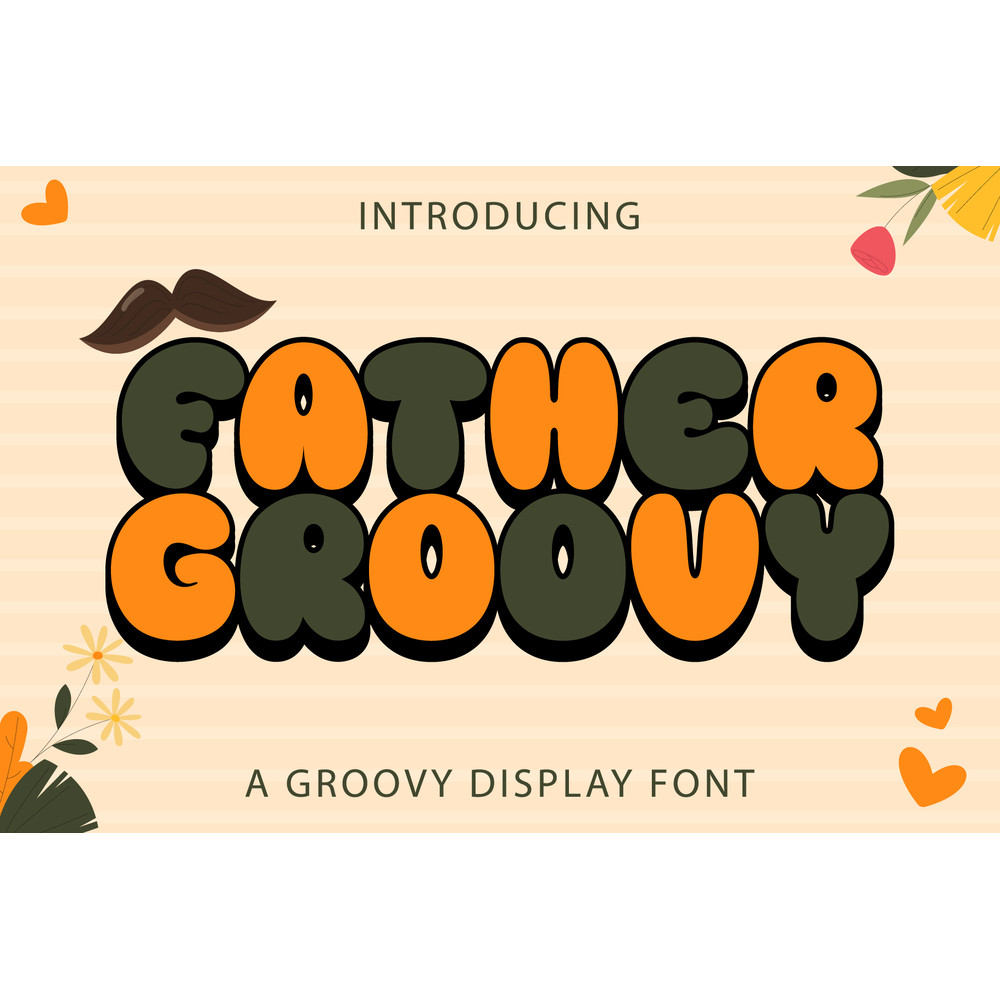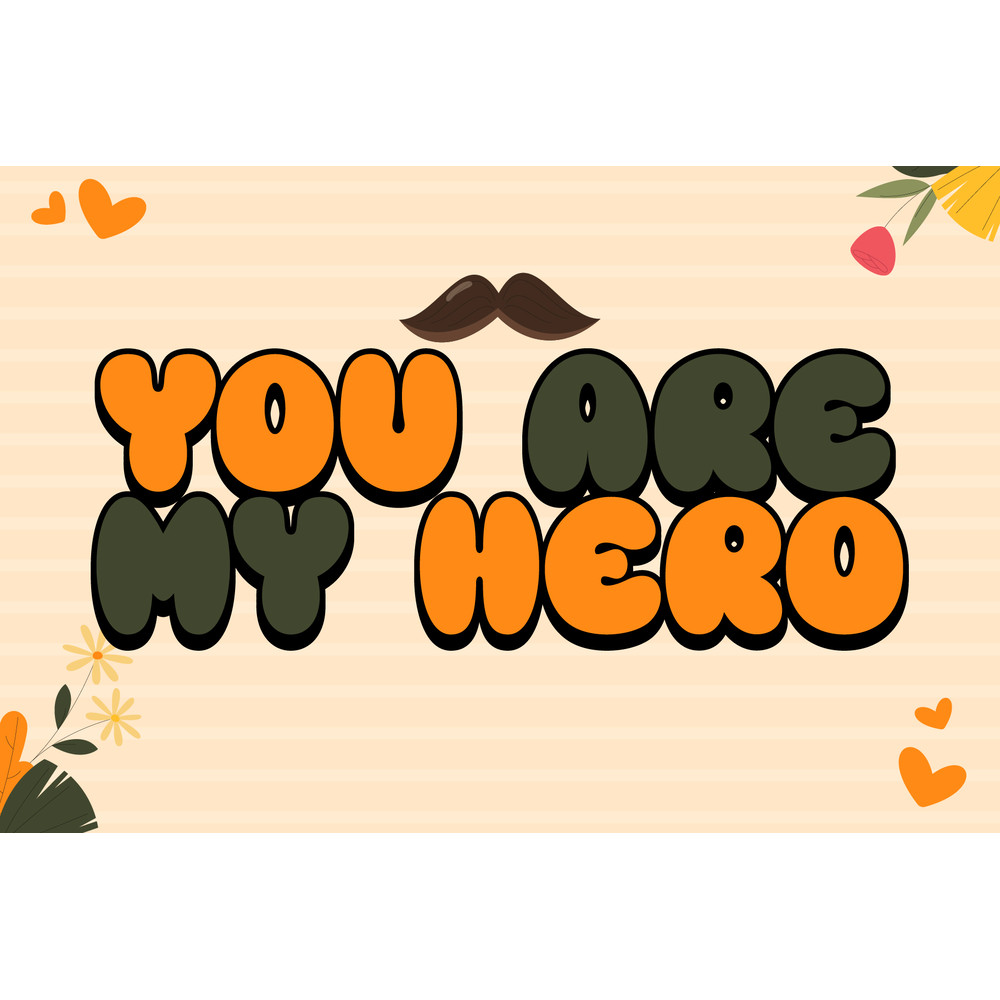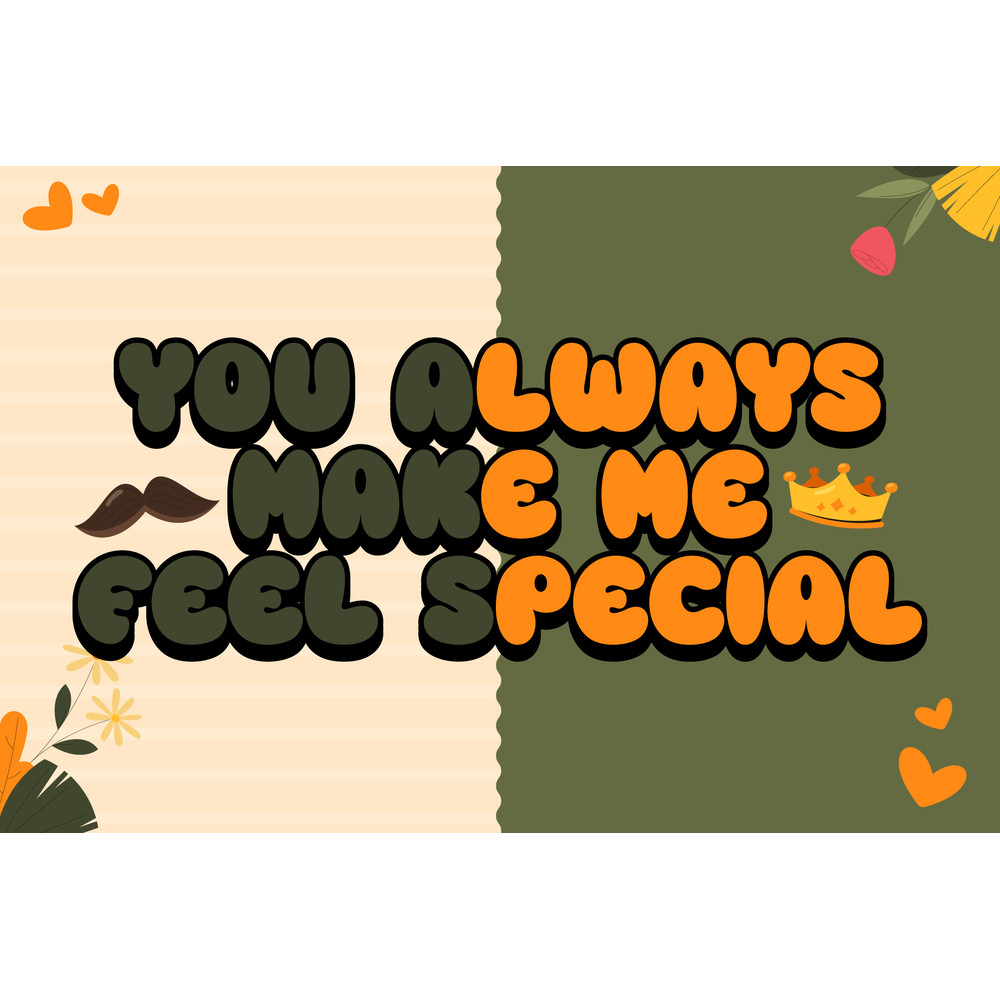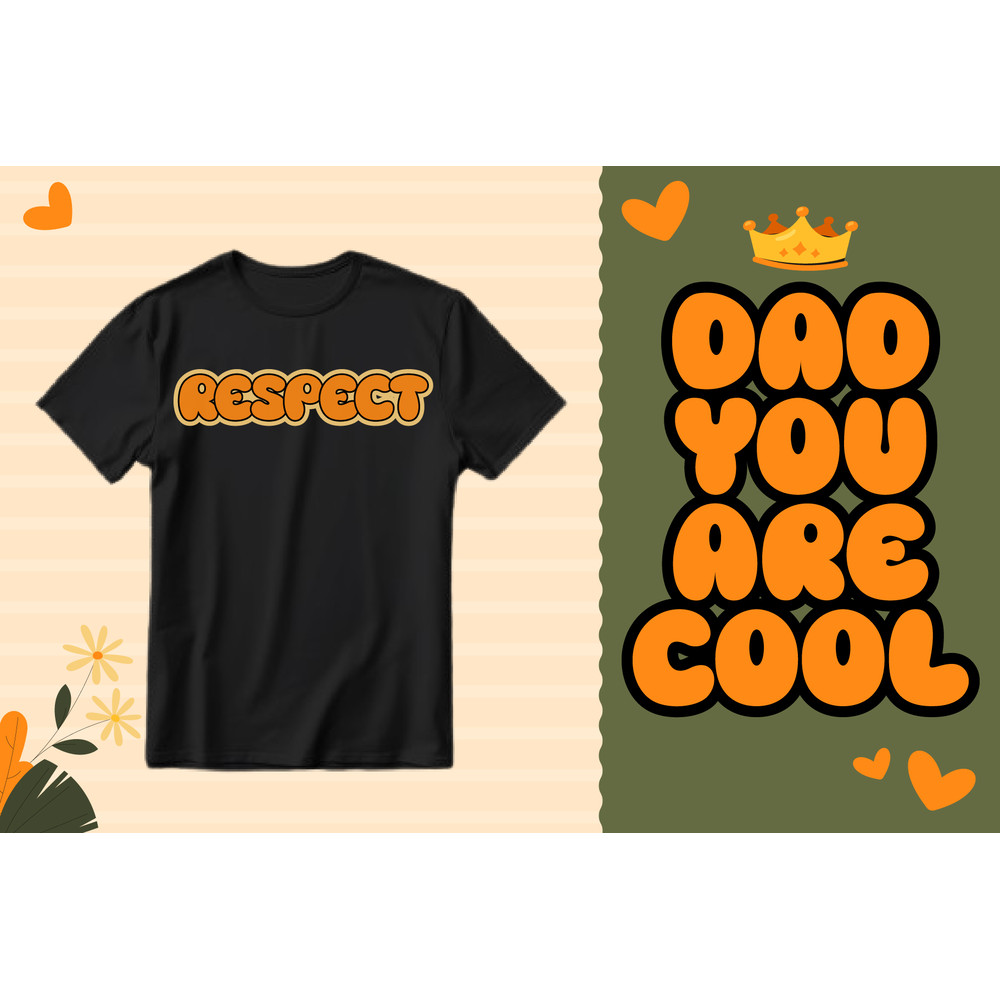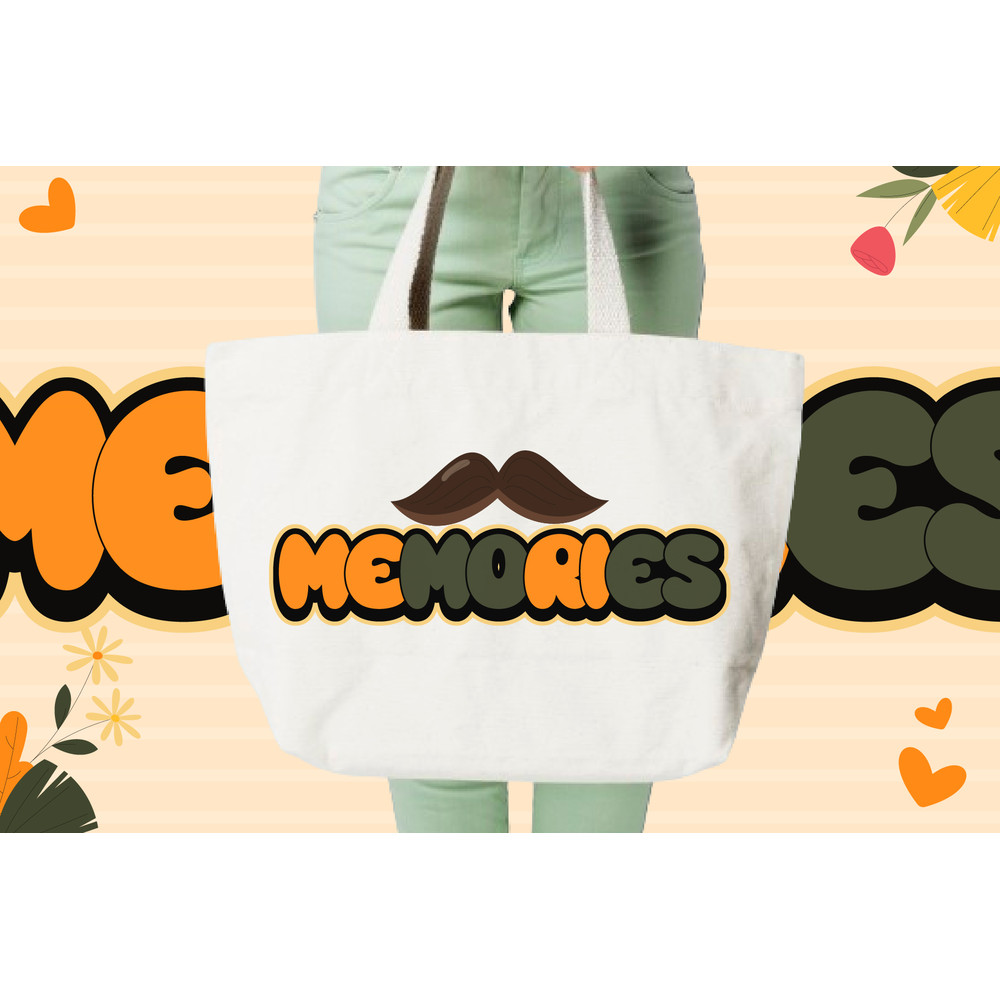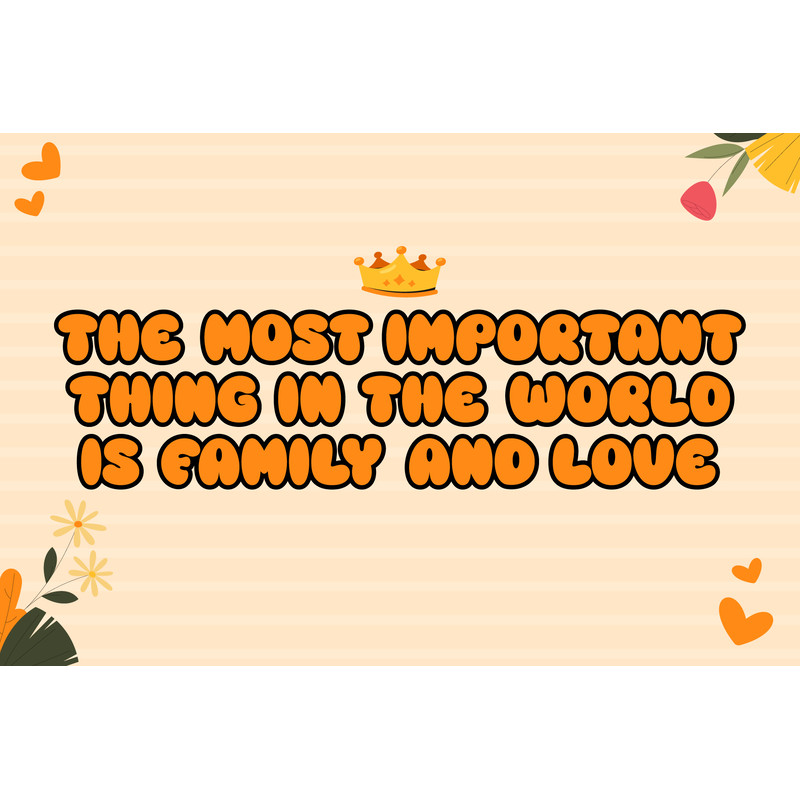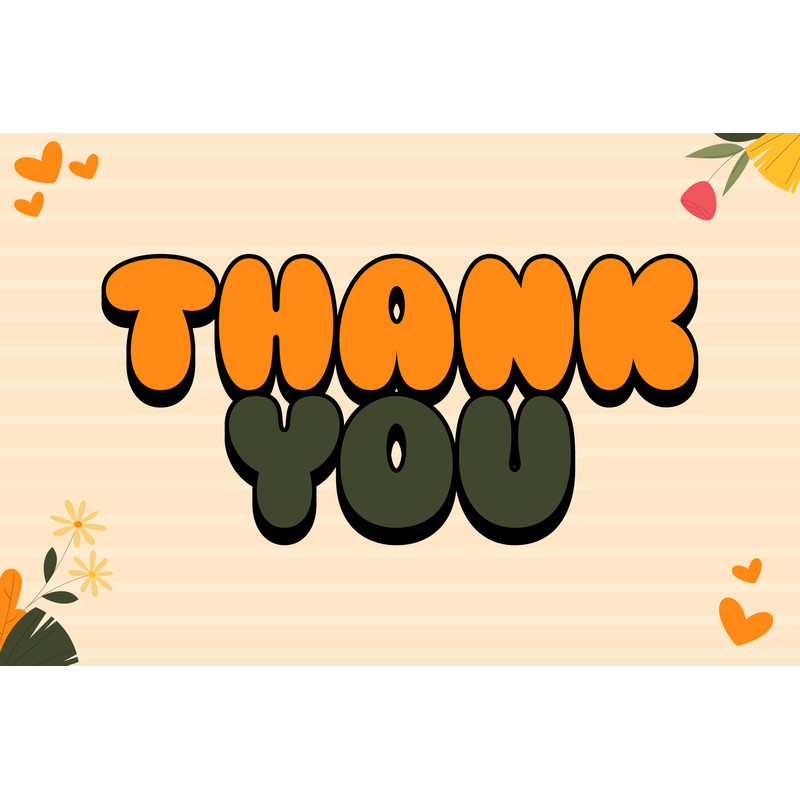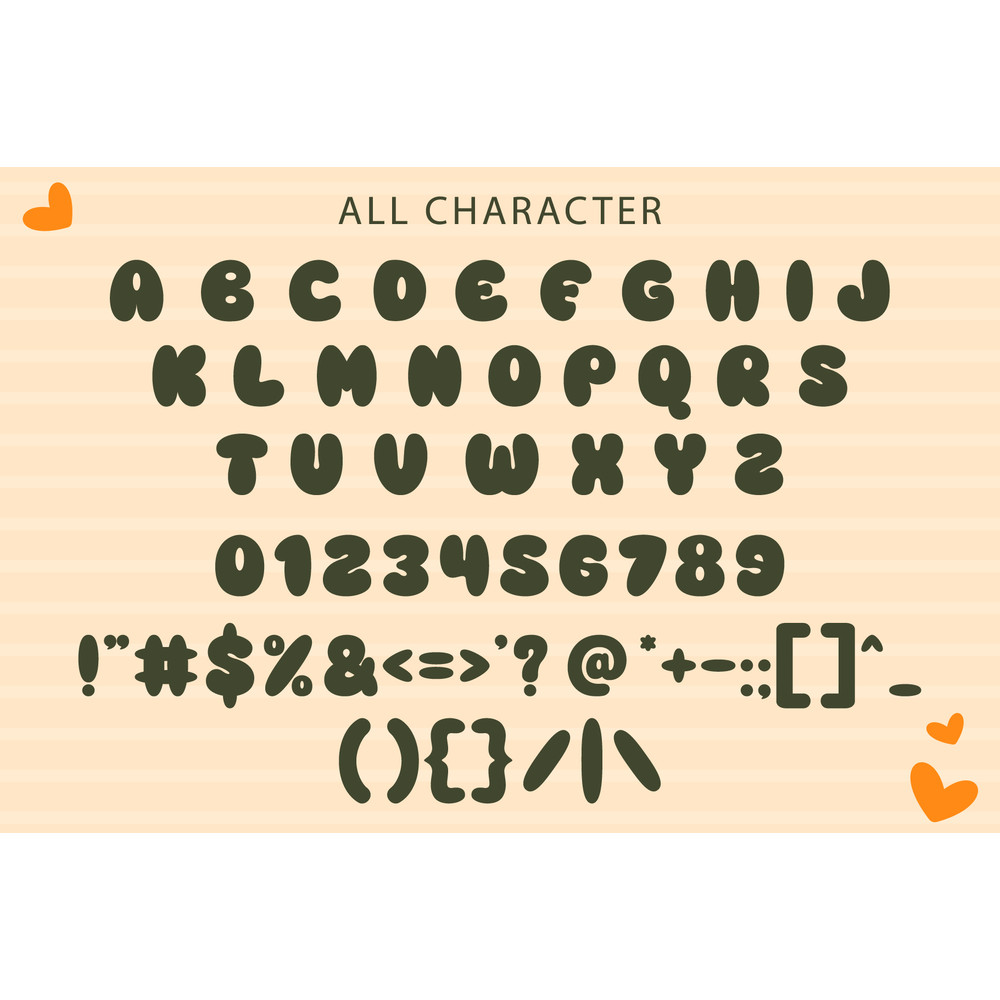
Father Groovy Font
Father Groovy is a versatile, stylish, groovy, and playful retro display font, perfect for a wide spectrum of applications such as greeting cards, headlines, and more! Add it to any of your creative projects, and it will make them stand out from the crowd!